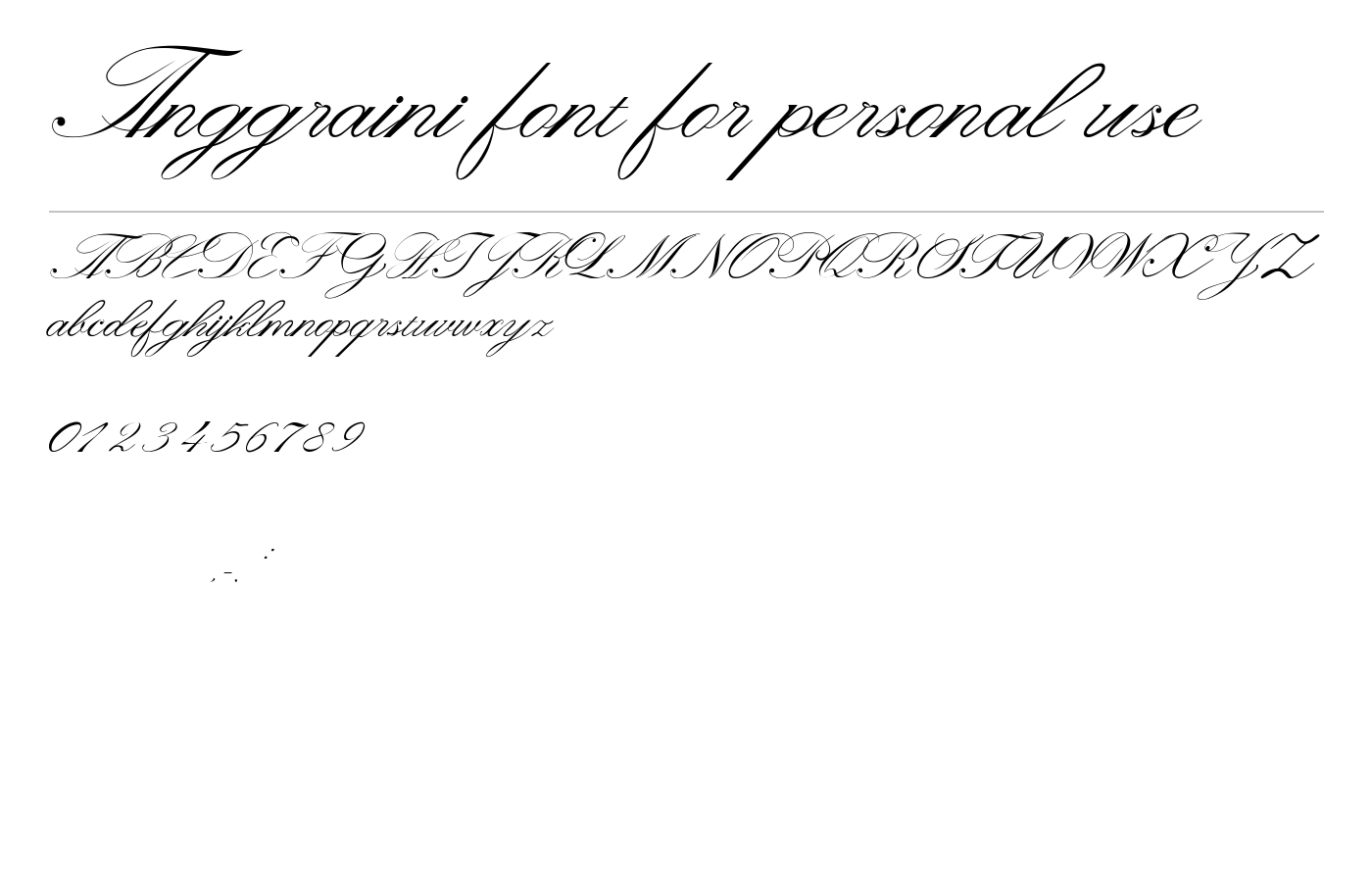
Anggraini is an elegant script font with graceful, flowing letterforms and thin, delicate strokes that convey a refined and sophisticated feel. Its high contrast and ornate, calligraphic style make it ideal for invitations, branding, and decorative headings where a touch of luxury and personal flair is desired. This font works best in designs that seek to evoke elegance and charm, adding a classic and artistic touch to any project.